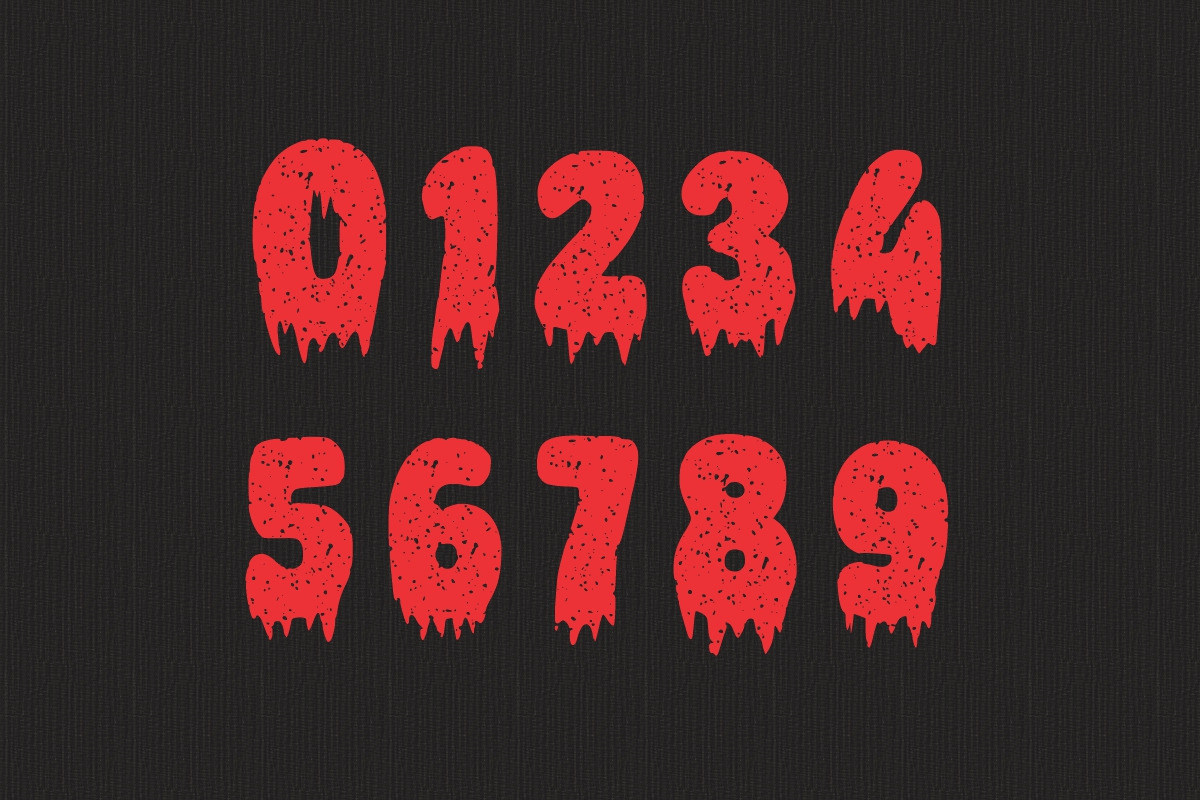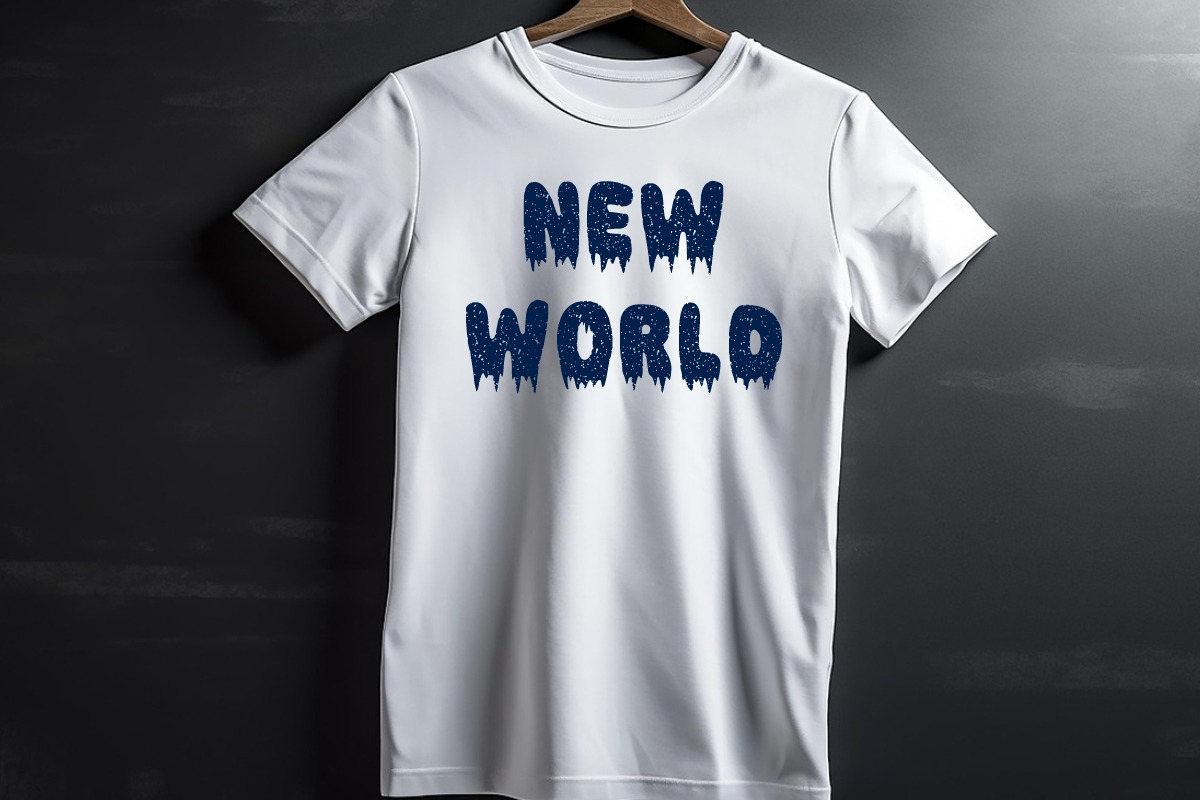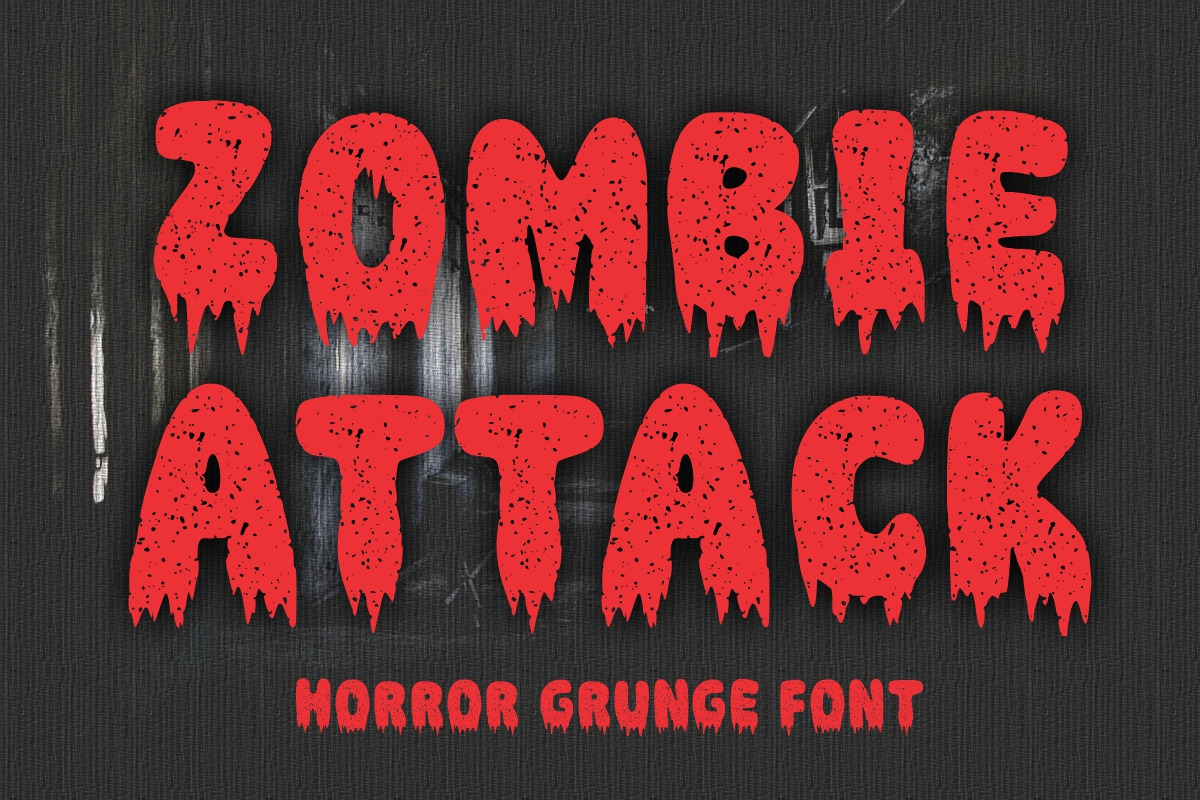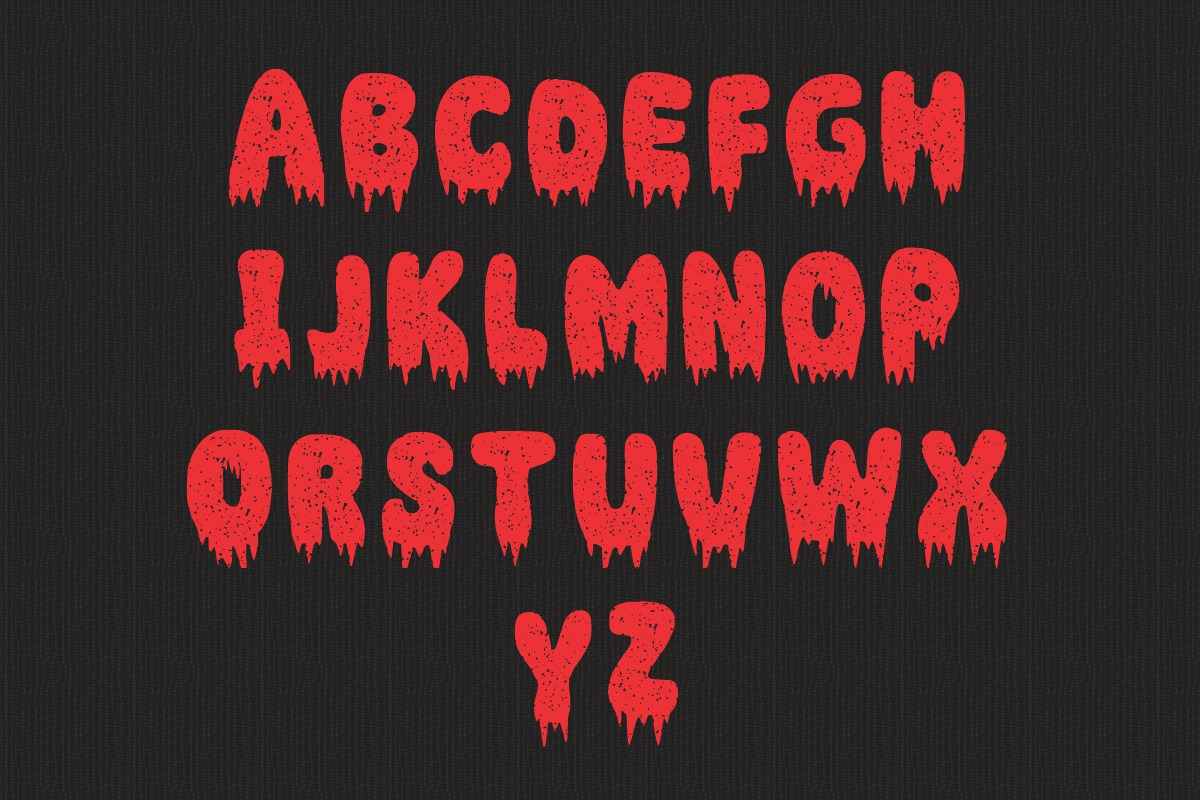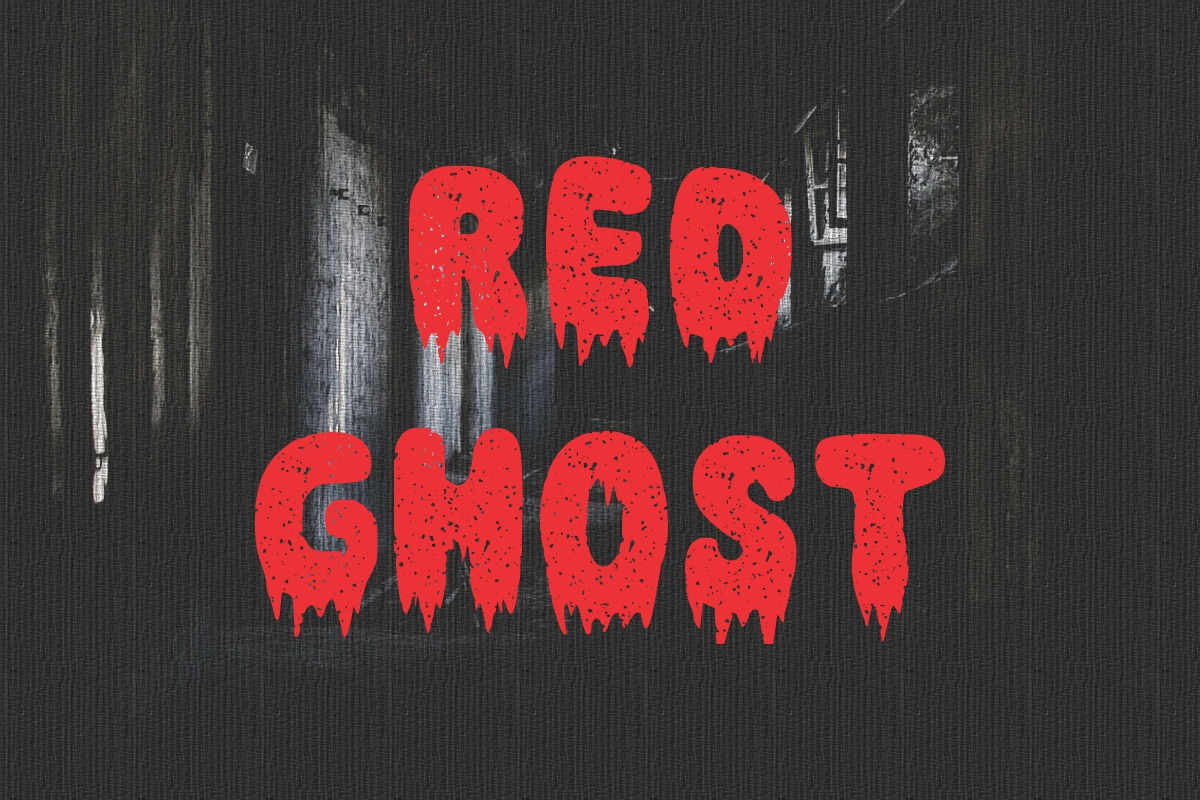
Zombie Attack Horror Font
Zombie Attack is a horror and scary display Halloween font. You can use it for various projects such as blog posts, logos, branding, ads, invitations, greeting cards, planners, photo albums, decorations, or anything related to Halloween or horror.